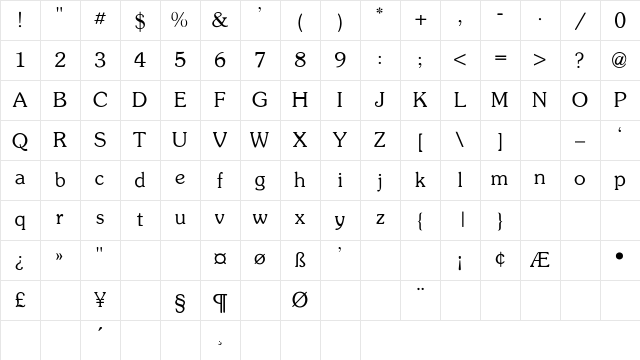
Porter Thin Regular
Complete Porter Thin Regular glyph index. Displaying only characters natively supported by Porter Thin Regular font.
Design Context for Porter Thin
Porter Thin is a composed and adaptable typeface that performs quietly and consistently across a wide range of design contexts. Its slender proportions lend an understated elegance to any composition.